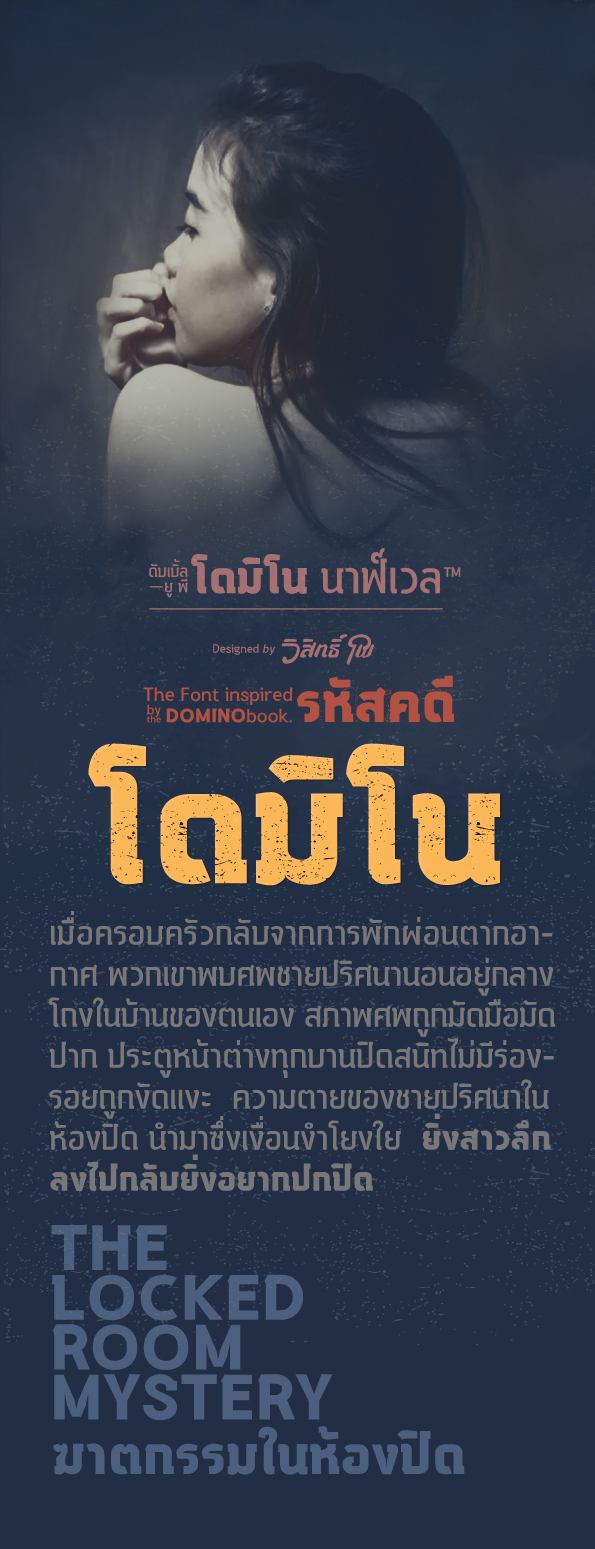
iWP DOMINO novel font
This font Inspired by the prototypes character on the Domino book cover (the story is about an incredible crime, complex puzzles). the Domino is written by Wisit Po, Thai mystery writer.